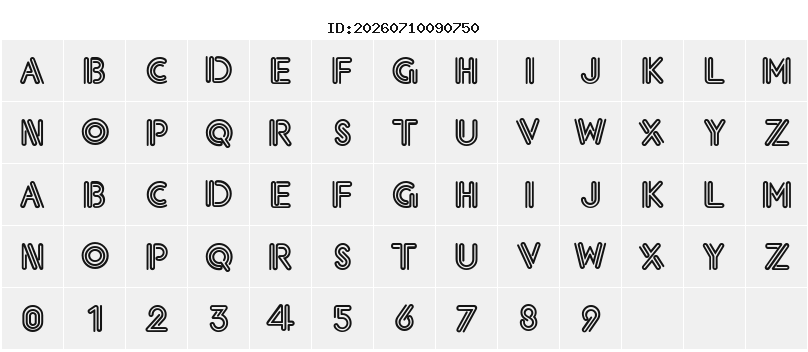
Eklektic-Normal-Light Preview
About Eklektic-Normal-Light.ttf
Eklektic-Normal-Light.ttf is a modern, elegant sans-serif font designed for ultimate readability and visual harmony. Perfect for branding, headlines, web design, and print materials.